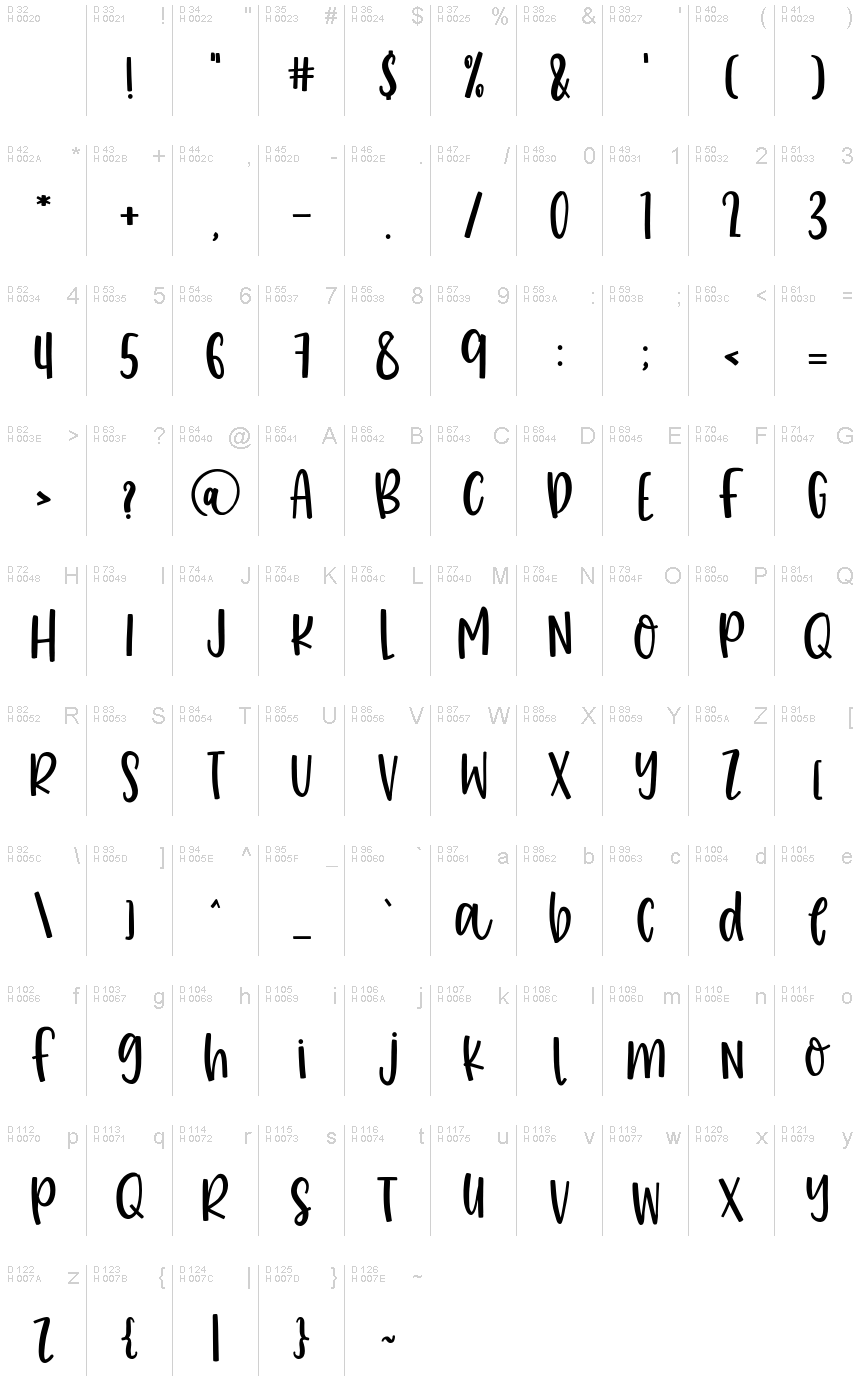
Fresh Lemon
Fresh Lemon, a captivating handwritten font designed by Goodrichees, exudes a delightful, whimsical charm. Its condensed width lends a sense of effortless fluidity to the letterforms, creating a playful and energetic aesthetic. The organic, hand-crafted strokes evoke a sense of warmth and approachability, making it an enticing choice for a wide range of design projects.
This versatile font's distinctive character makes it a compelling option for branding, packaging, and editorial designs. Its lively personality shines through in headings, logos, and decorative applications, adding a touch of personality and individuality to any project. Whether you're crafting a vibrant social media post, designing a charming product label, or infusing a publication with a playful spirit, Fresh Lemon by Goodrichees is a font that captivates and delights.